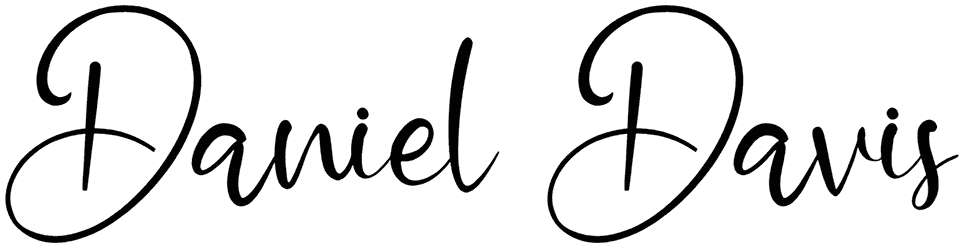
Daniel Davis Font
A cursive script font, the same as the Daniel Davis, can save you time and energy in the middle of designing high-end creative ideas such as gift cards, greeting cards, invitations, social media posts, or applications.
The flattering point about this feminine font is that it comes with a vibe of personalization, momentum, delicacy, or softness. Due to its rounded and crooked letters, it looks incredibly perfect for any kind of project that requires an artistic touch.